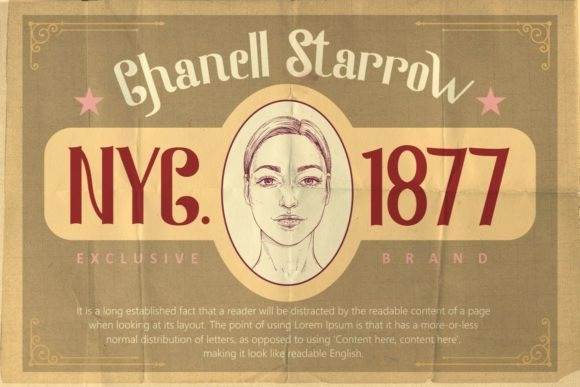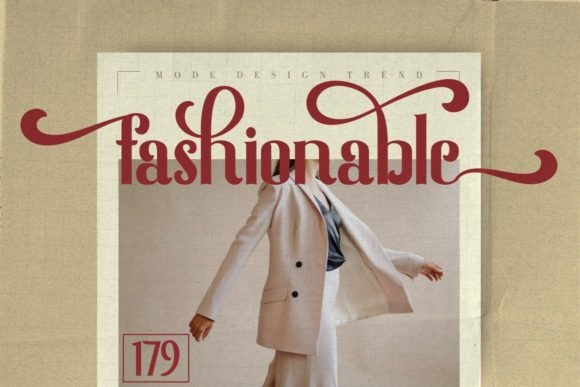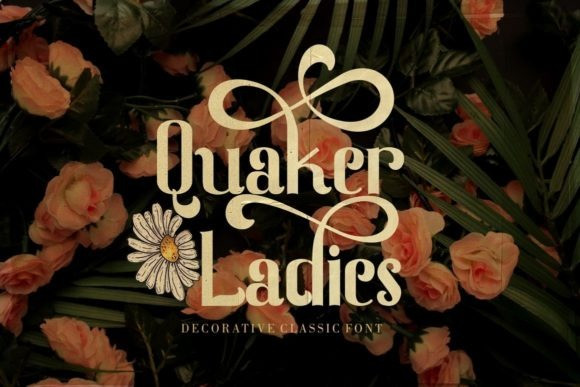
Quaker Ladies Font
Quaker Ladies Retro Font is a distinct and uniquely shaped serif classic font. This font is neatly crafted and highly detailed. It is also PUA encoded which means you can access all glyphs and swashes with ease!